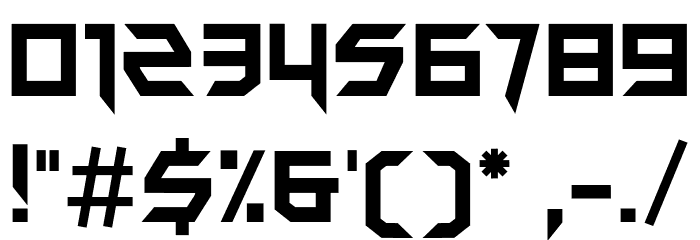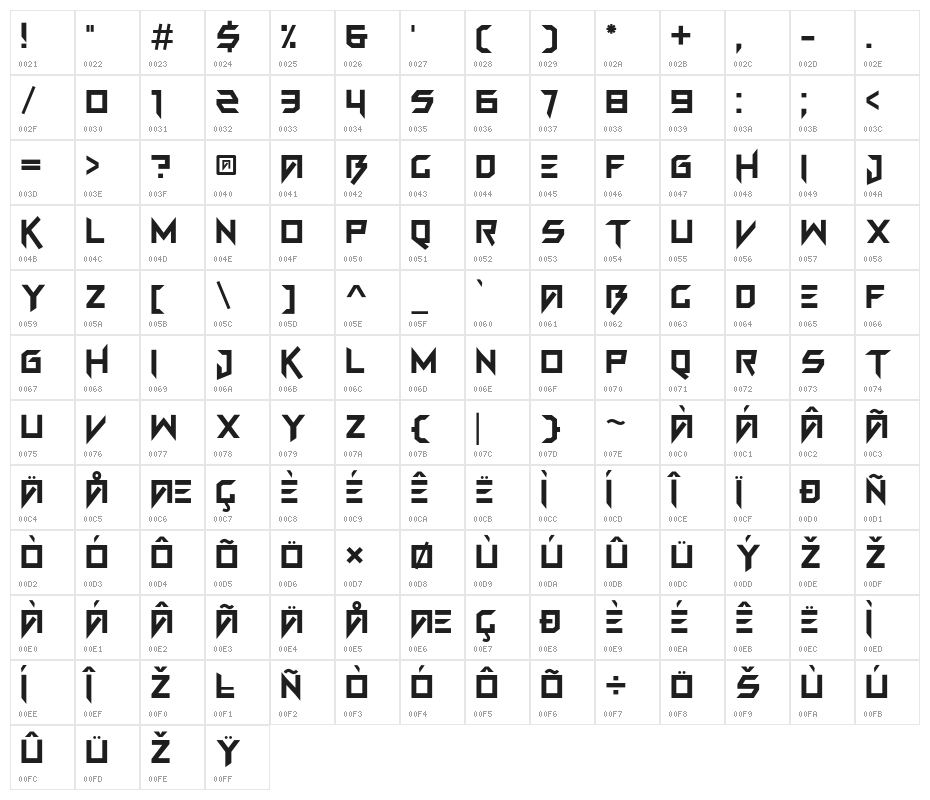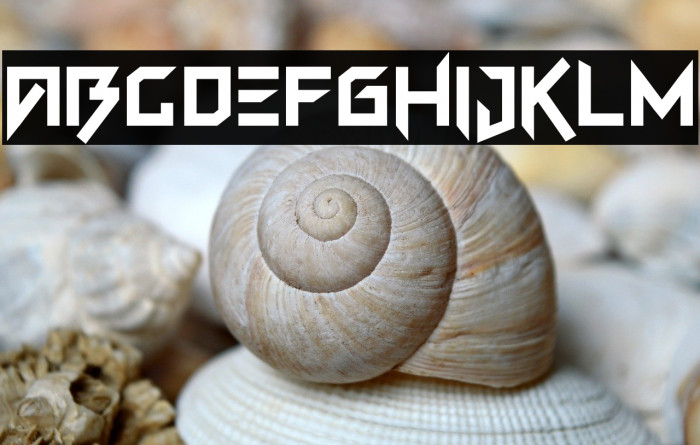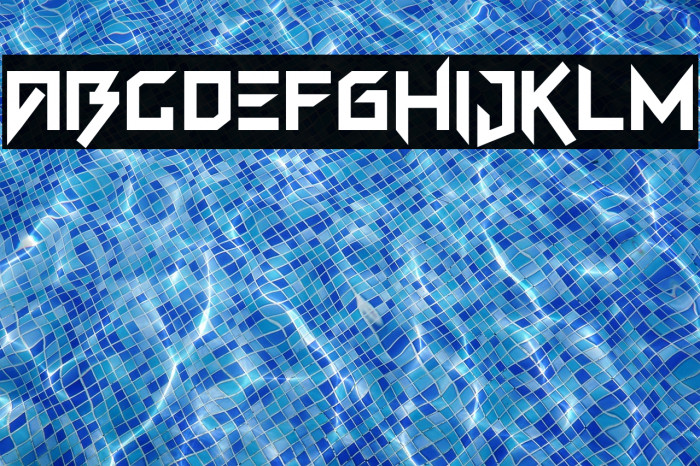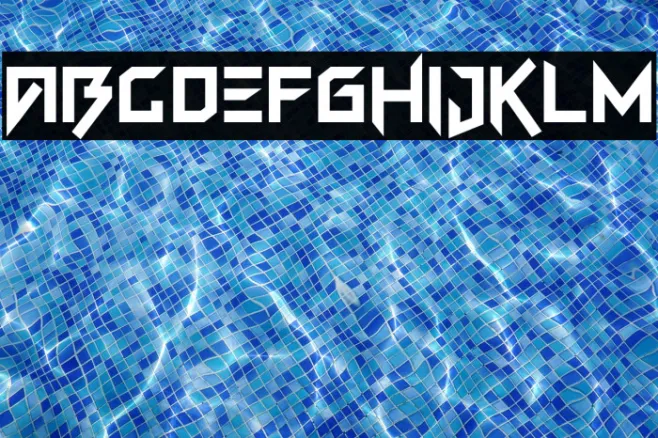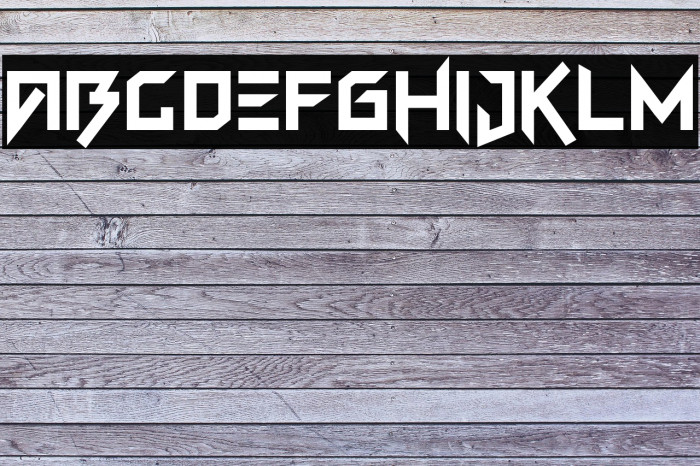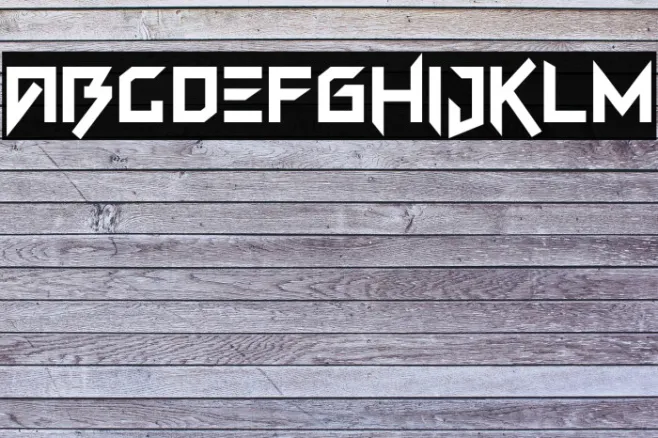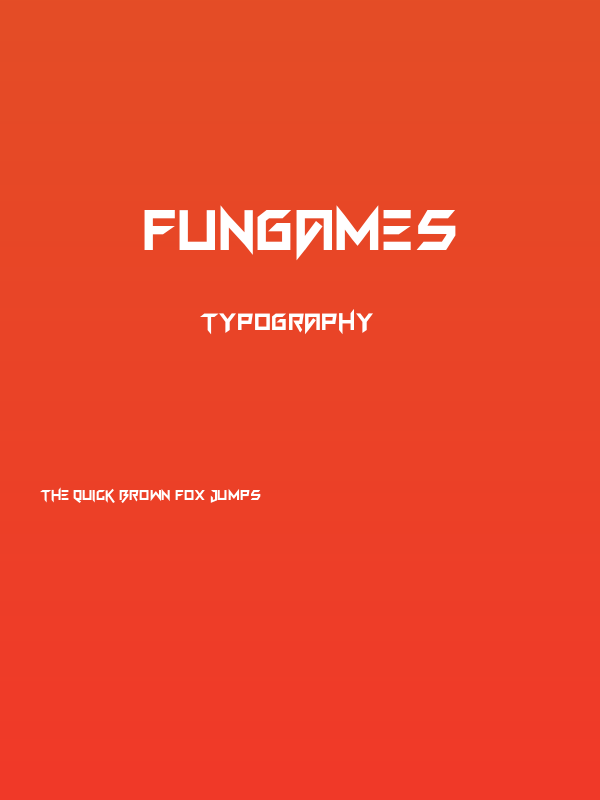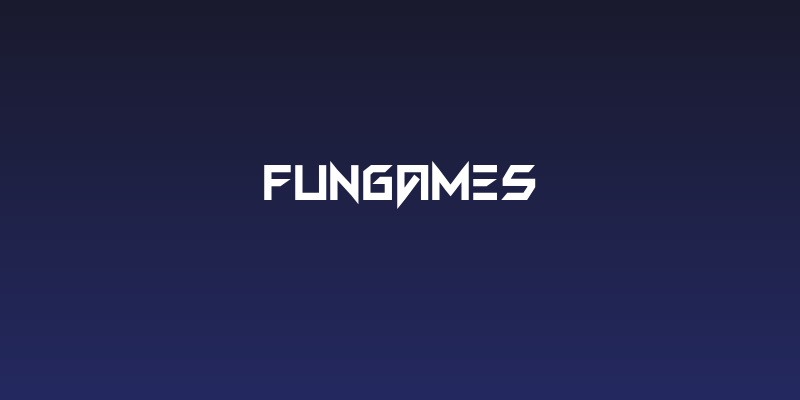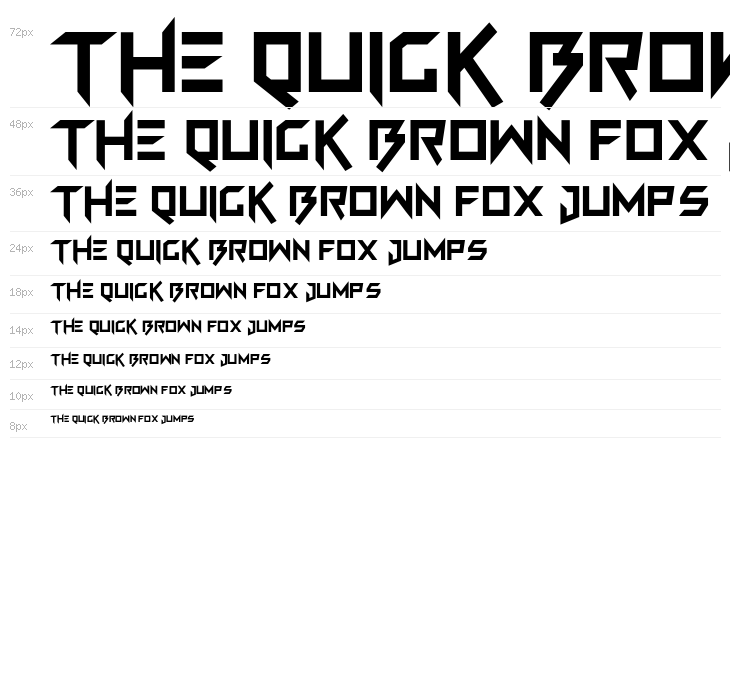
FUNGAMES Font
FUNGAMES Description
This font features a bold, geometric design with sharp angles and a futuristic aesthetic. Each character is crafted with precision, emphasizing a strong, dynamic presence. The uppercase letters are particularly striking, with a consistent angular motif that runs throughout the set. The numerals and special characters maintain this cohesive style, ensuring versatility across various applications. The font's unique structure makes it ideal for projects that require a modern and edgy look, such as gaming titles, tech branding, or sci-fi themed designs.
| Proposed Projects | Ideal for gaming titles, tech branding, sci-fi themes, and modern posters. |